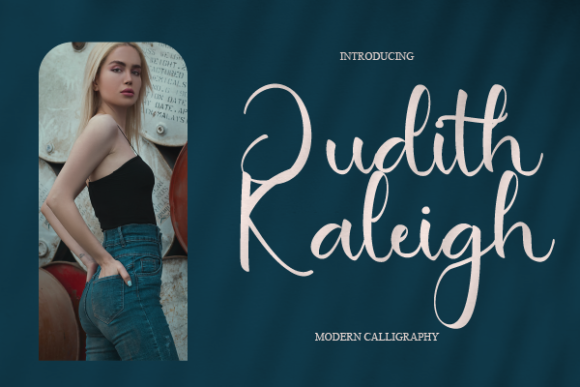
**Introducing Judith Kaleigh: The Script Font That Will Transform Your Designs**
Prepare to be captivated by Judith Kaleigh, an exquisite script font that effortlessly combines elegance and allure. Every character exudes a graceful flow, adding a touch of sophistication to your projects.
**Unleash Your Artistic Flair**
With Judith Kaleigh, your designs will radiate a timeless charm. It's the perfect choice for product packaging that demands attention, branding projects that aspire to make a statement, and magazine covers that command respect.
**Elevate Your Social Media Presence**
Capture the hearts of your followers with Judith Kaleigh's captivating presence on social media. Create eye-catching captions that will leave a lasting impression and showcase your content in a way that sets you apart.
**Celebrate Special Moments**
Let Judith Kaleigh add a touch of romance to your wedding invitations, bringing your love story to life with its delicate strokes. Or, use it to express your emotions beautifully, crafting heartfelt messages that convey the depth of your feelings.
**Experience the Versatility of Judith Kaleigh**
Judith Kaleigh possesses unparalleled versatility, adapting seamlessly to a myriad of projects. Whether you're designing for print or digital, personalizing products or creating captivating social media content, Judith Kaleigh will elevate your work to new heights.
**Embrace the Power of Script**
Judith Kaleigh is more than just a font; it's a gateway to a world of creative possibilities. Its elegant curves and graceful lines will transform your designs, adding a touch of timeless beauty and sophistication.